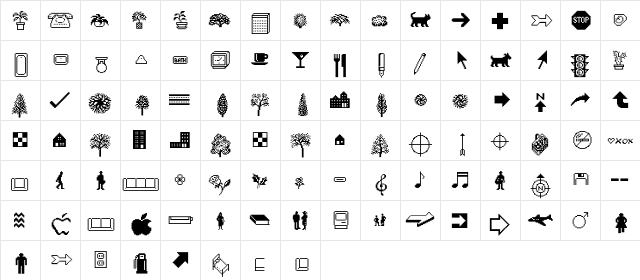
Classics Mobile
Design Context for Classics Typeface
Classics has the warm character of retro typography — evoking diners, record sleeves, and the golden age of print advertising.
Font Pairing: Combine Classics with a simple slab or neutral sans — period-accurate companions reinforce the vintage feel without competing for attention.
Pro Tip: Lean into Classics's period character by pairing it with aged paper textures, muted colour palettes, and vintage illustration styles.